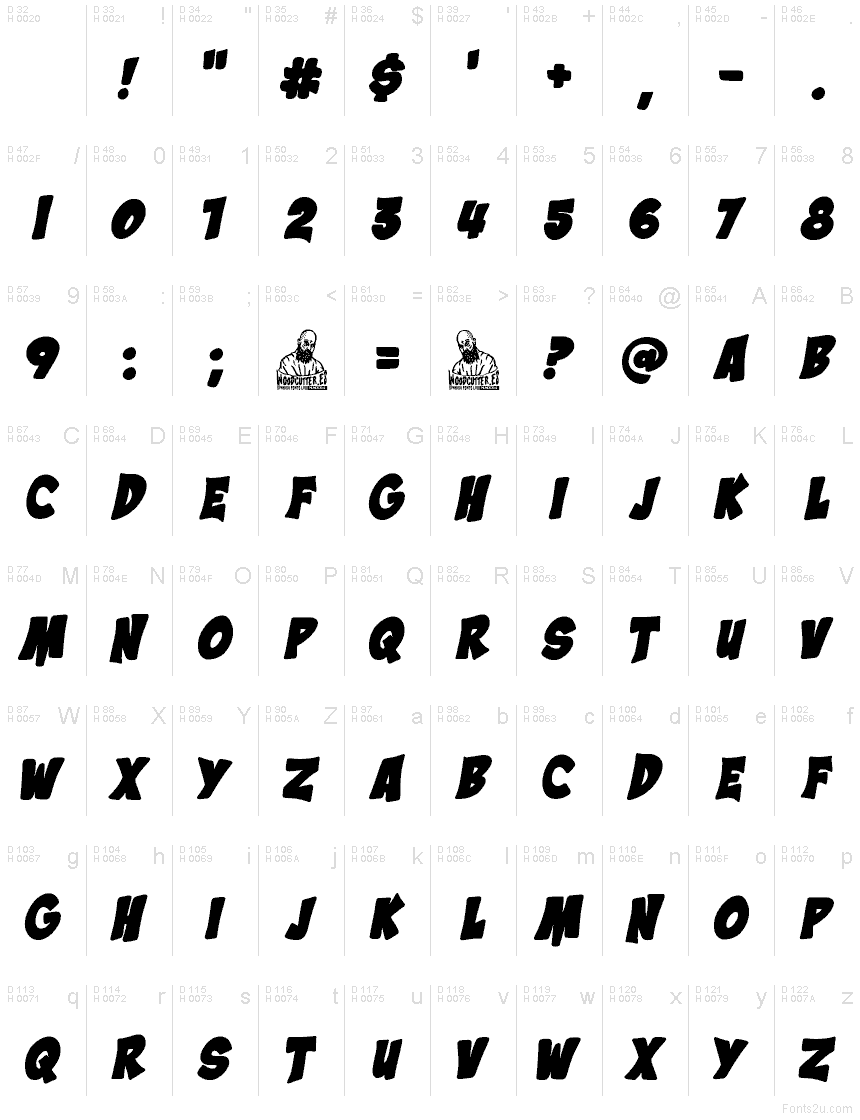
American Channel
American Channel font by Woodcutter is a free bold cartoon font. Its chunky, forward-leaning letters look hand-brushed—thick strokes, sharp wedge cuts, and a lively bounce that reads loud and fast. The texture feels inky and slightly rough around the edges, giving headlines that splashy, high-energy punch you usually have to fake with effects.
Using American Channel, titles snap into place for comic covers, YouTube thumbnails, game logos, snack packaging, event flyers, and sticker sheets. The tight rhythm keeps words compact without losing impact, so you can stack lines and still shout. This free font shines on big, high-contrast layouts; pair it with a clean, low-contrast sans for supporting text, and add a touch of tracking when you go all caps.